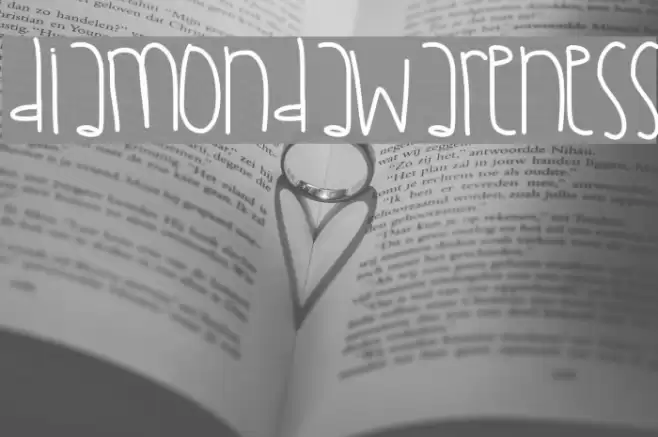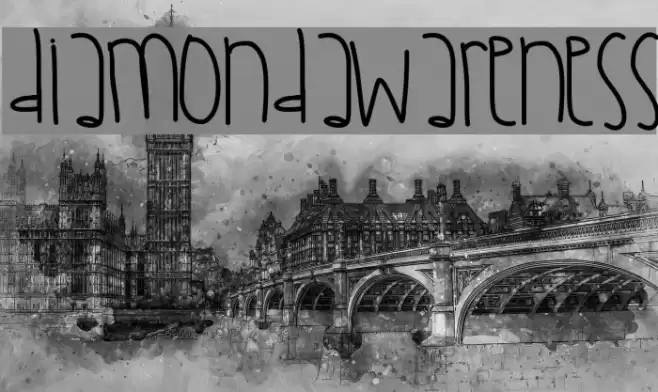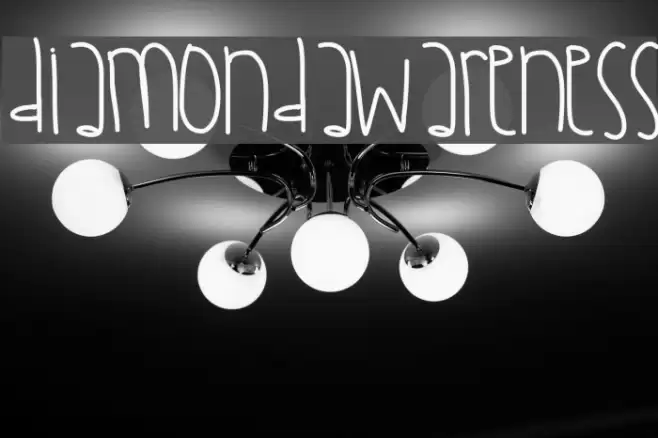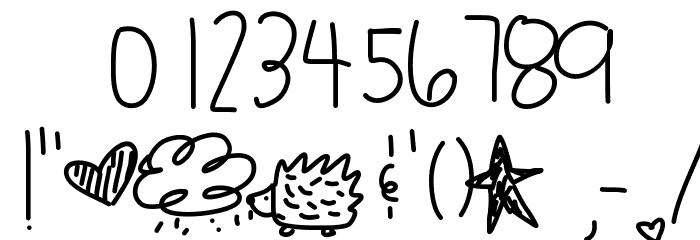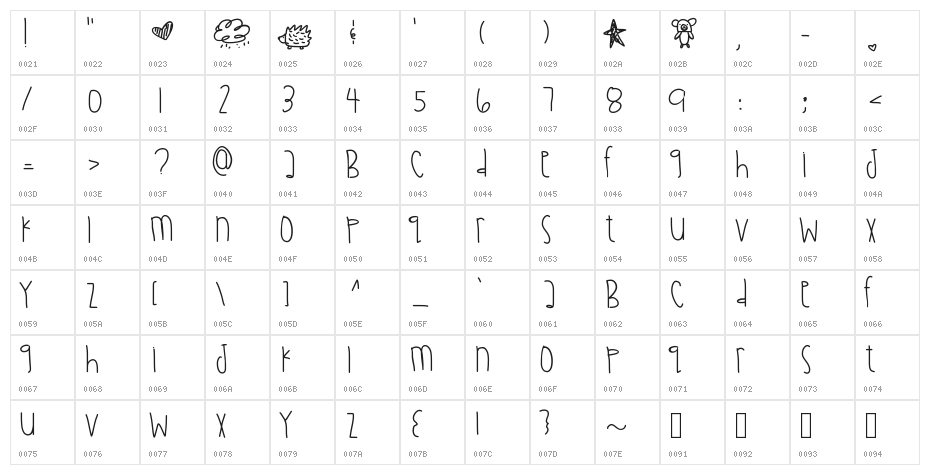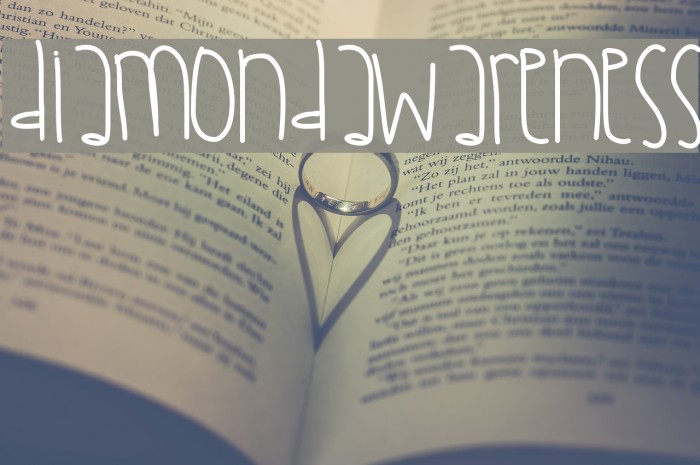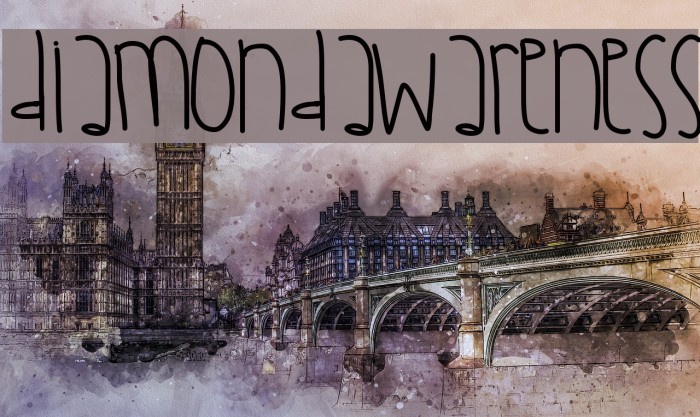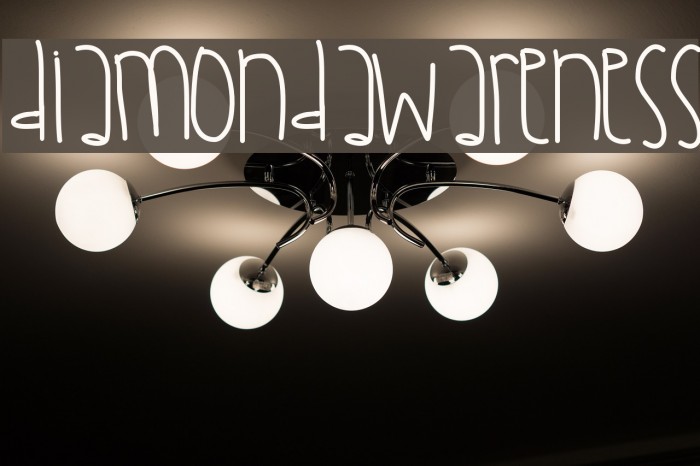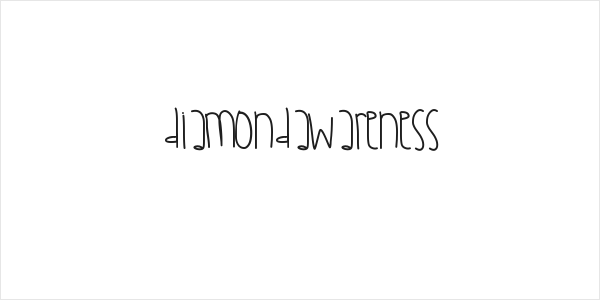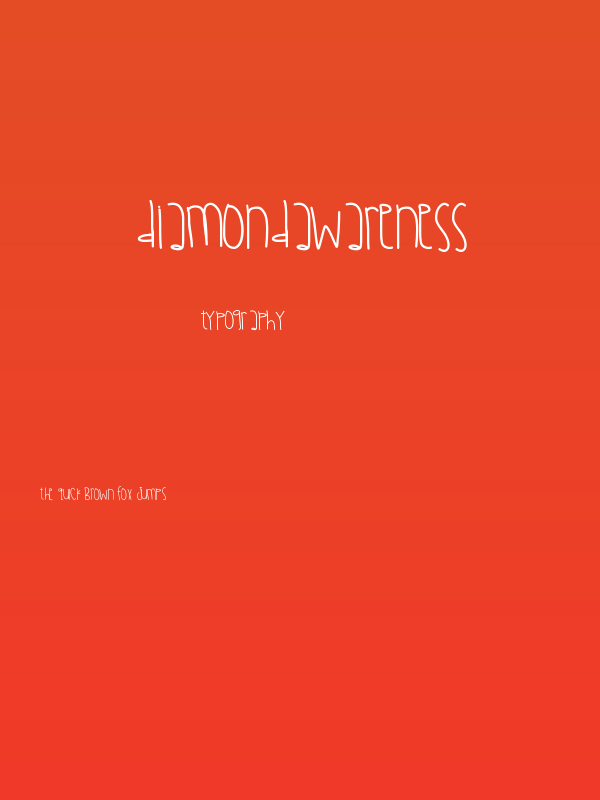
DiamondAwareness Font
DiamondAwareness Description
This playful and whimsical font features tall, narrow characters with a hand-drawn appearance. The letters are slightly irregular, adding to the casual and informal style. The uppercase and lowercase letters maintain a consistent height, creating a uniform look despite their quirky shapes. Numbers follow the same playful design, with rounded edges and a slightly uneven baseline. The special characters, including symbols like hearts and stars, enhance the font's decorative and fun nature. This font is perfect for projects that require a lighthearted and creative touch.
A playful, hand-drawn font with tall, narrow characters and whimsical symbols from Uncategorized fonts.
- Proposed Projects: Ideal for children's books, greeting cards, playful branding, and creative posters.